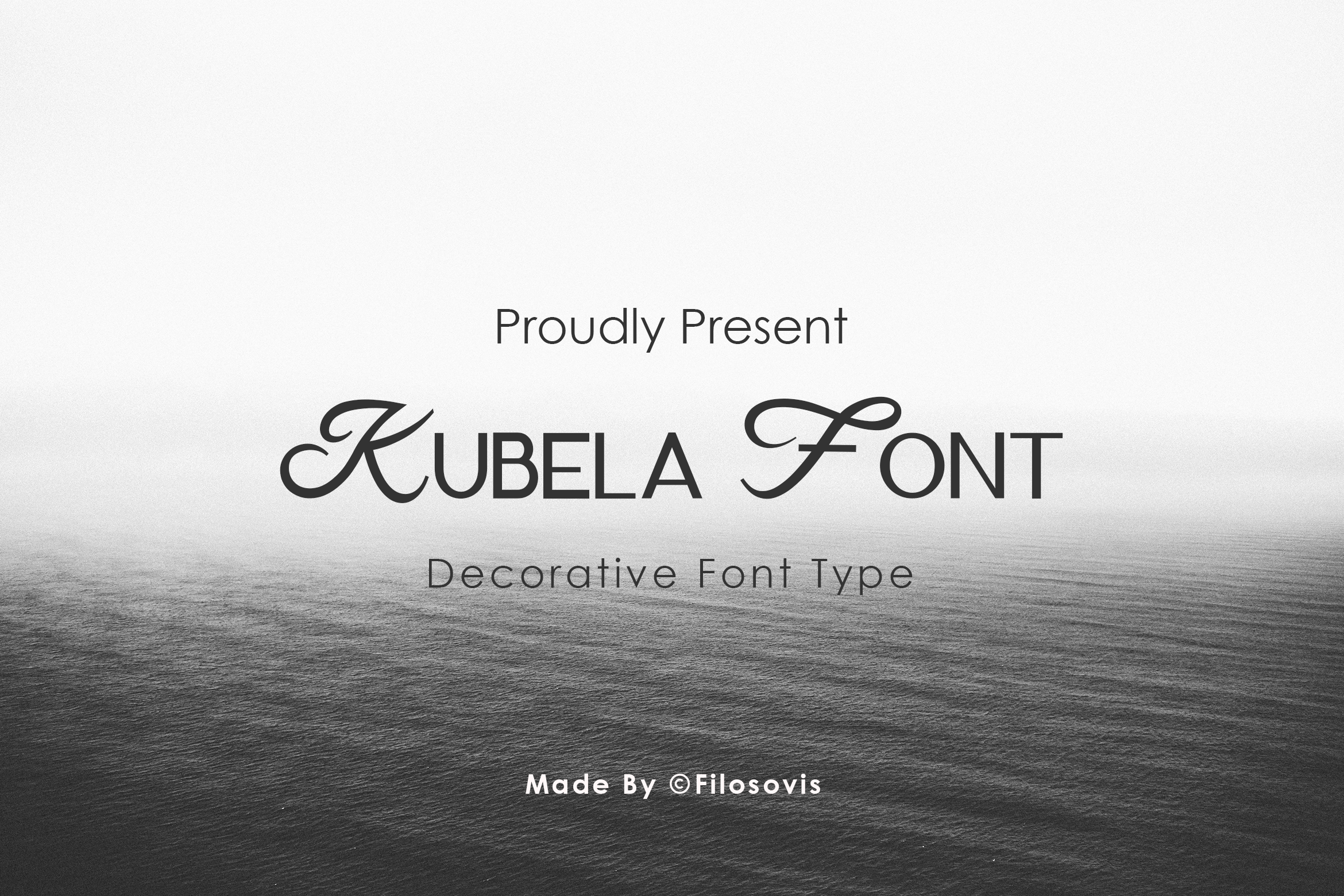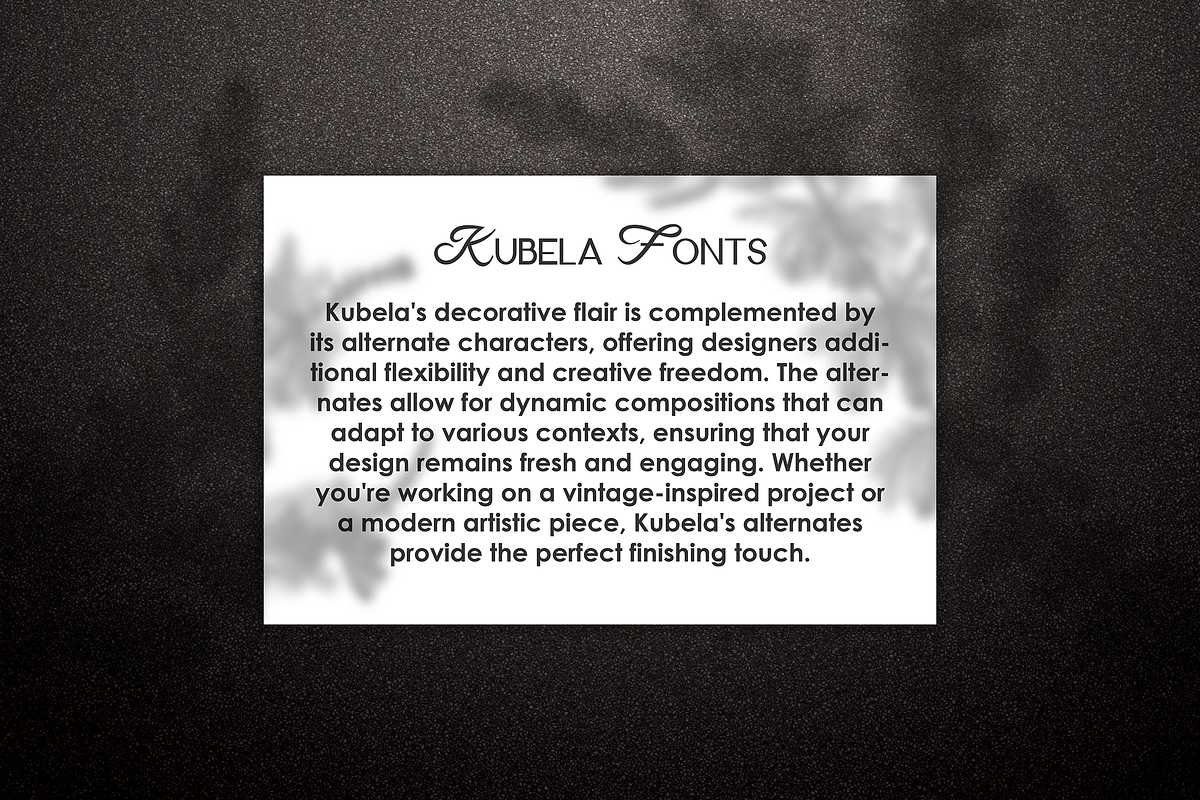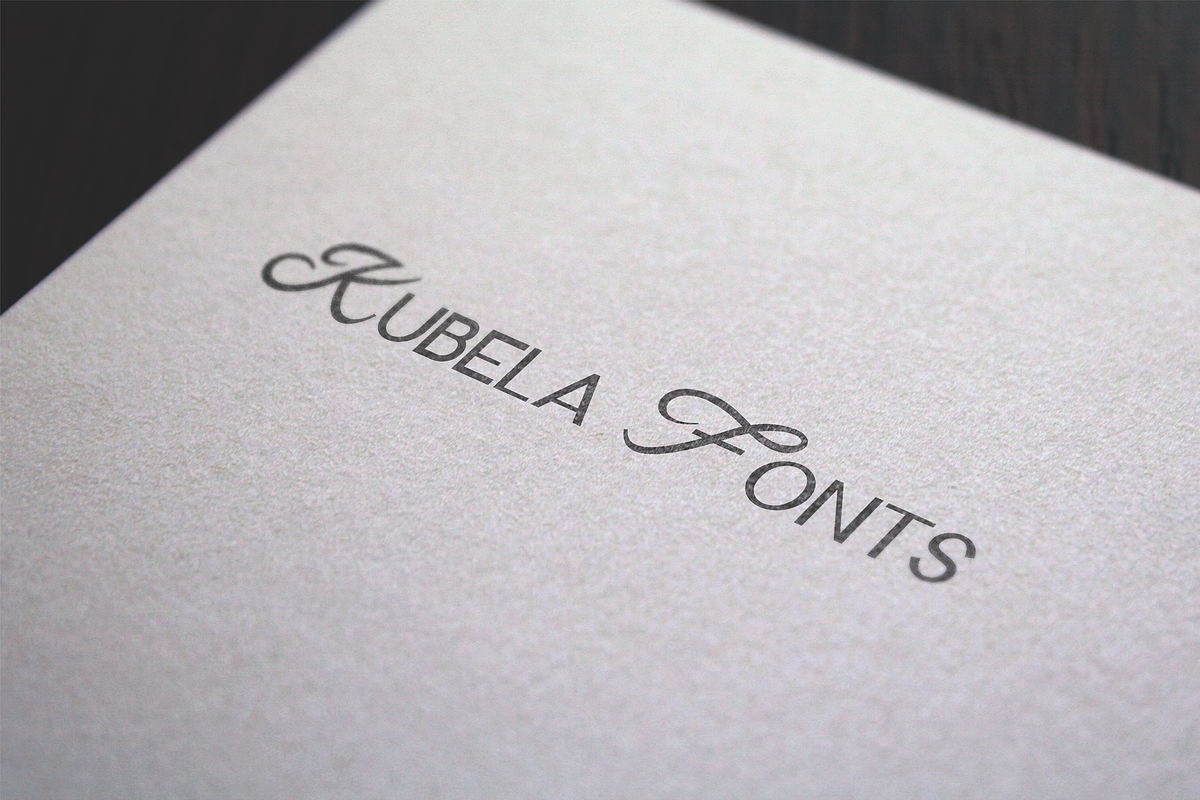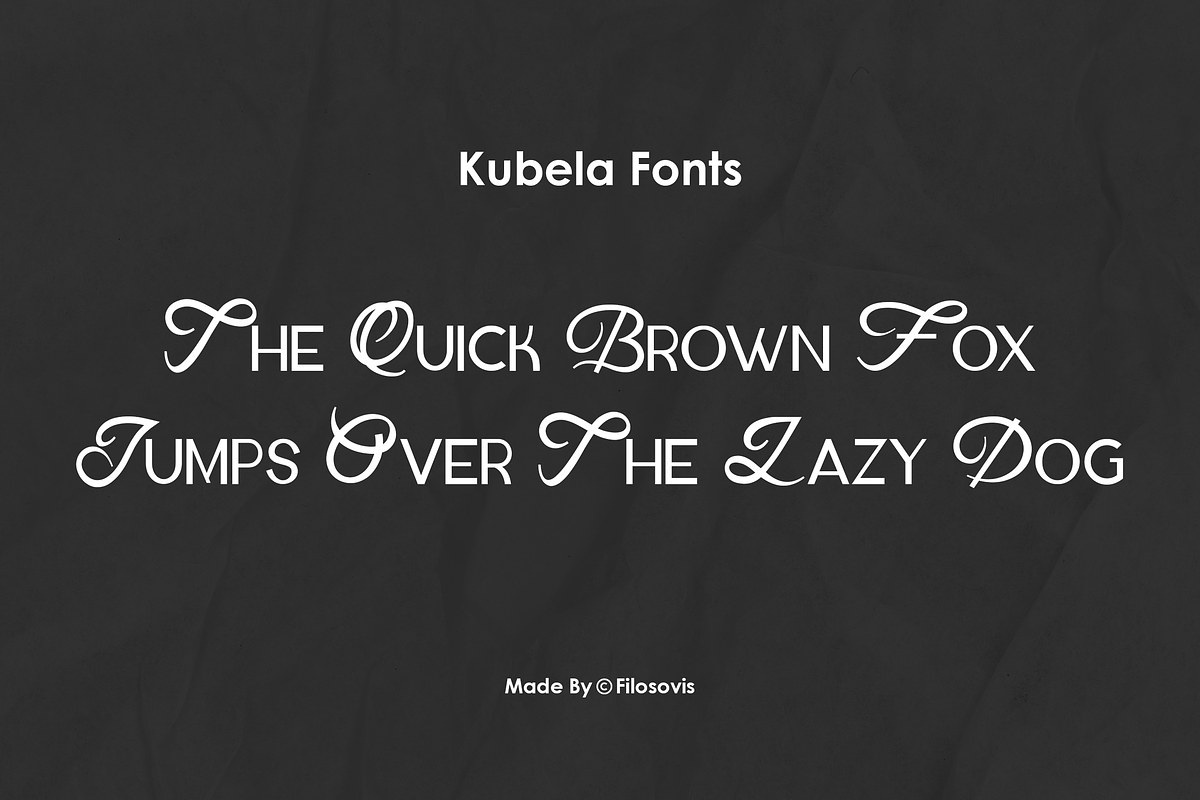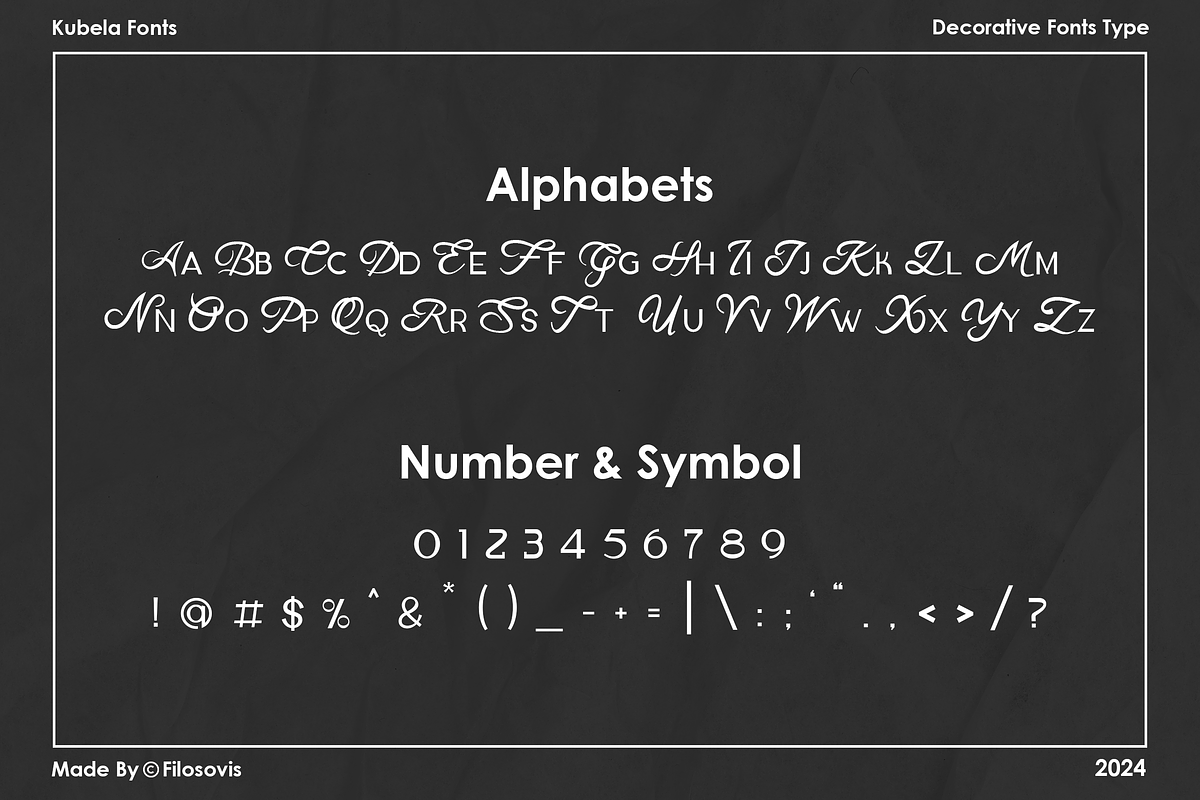
Kubela | Decorative Font Type
Kubela is a brush decorative font type that adds a playful twist to any design. With its whimsical letterforms and unique charm, it's perfect for eye-catching headlines, vibrant posters, and playful branding projects. Infuse your creations with joy and personality with Kubela!
- Uppercase Characters
- Lowercase Characters